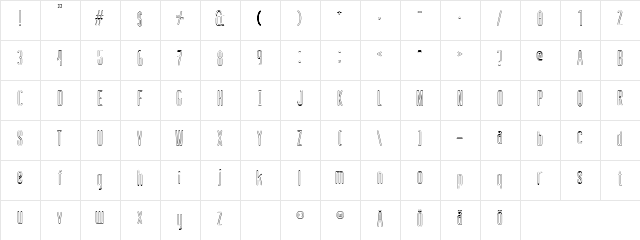
defatted milk Outline Font Preview
defatted milk Outline
defatted milk Outline Font Details
| Foundry | Nils von Blanc |
| Designer | Nils von Blanc |
Design Context for defatted milk Typeface
defatted milk brings ornamental detail and strong personality to headlines and identities, where visual impact matters more than quiet functionality.
Font Pairing: Pair with a clean neutral sans-serif for body copy to let defatted milk's character lead without overwhelming the composition.
Pro Tip: Use defatted milk exclusively at display sizes — it was designed to be seen, not read at length. Let a neutral companion handle body copy.